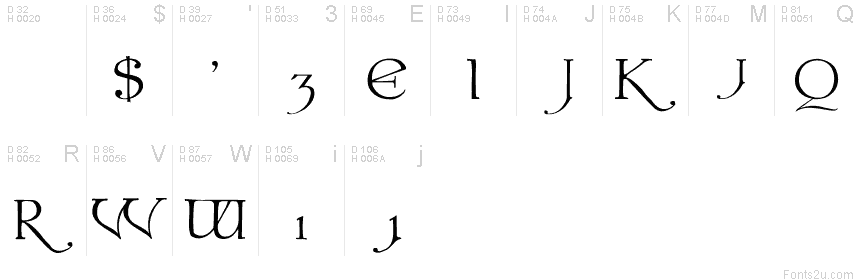
Colwell - Alternates
Colwell Alternates font by Apostrophic Laboratories is a free retro display typeface that channels the inky, handcrafted curves of early 20th‑century book jackets. Its tall, tapering strokes and softly swelling curves feel like they were brushed onto a shop window in 1916, giving every word a warm, nostalgic presence. The alternate characters add subtle surprises from letter to letter, so headlines feel lively and bespoke rather than mechanically repeated.
Using Colwell Alternates, your titles gain a storybook charm that shines on vintage posters, boutique packaging, café menus, craft brand logos, invitations, and editorial covers. The generous forms read best when set large, letting the curves and alternates really breathe. Pair this free font with a simple, neutral sans serif for body text to keep layouts readable while Colwell Alternates handles the expressive, attention‑grabbing moments.